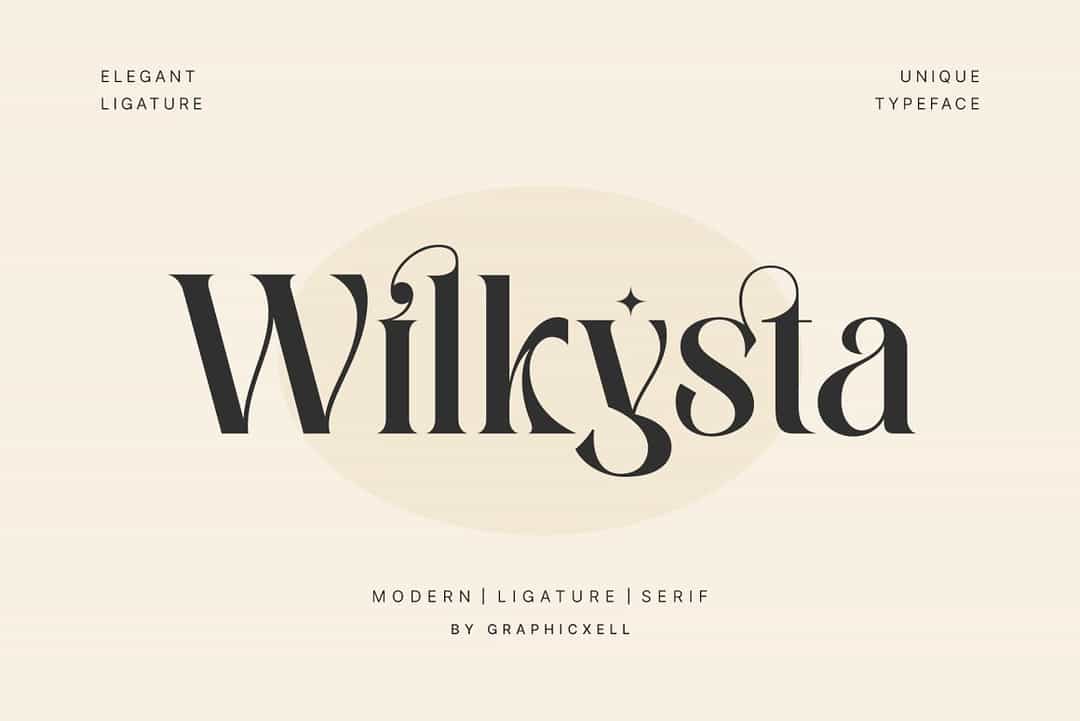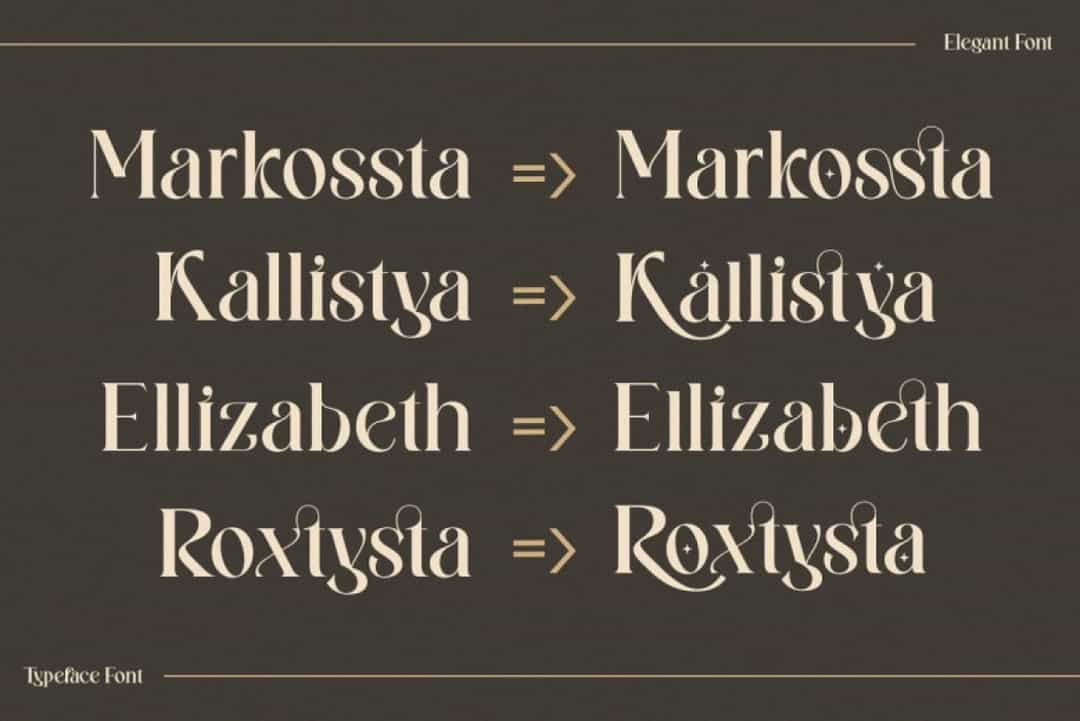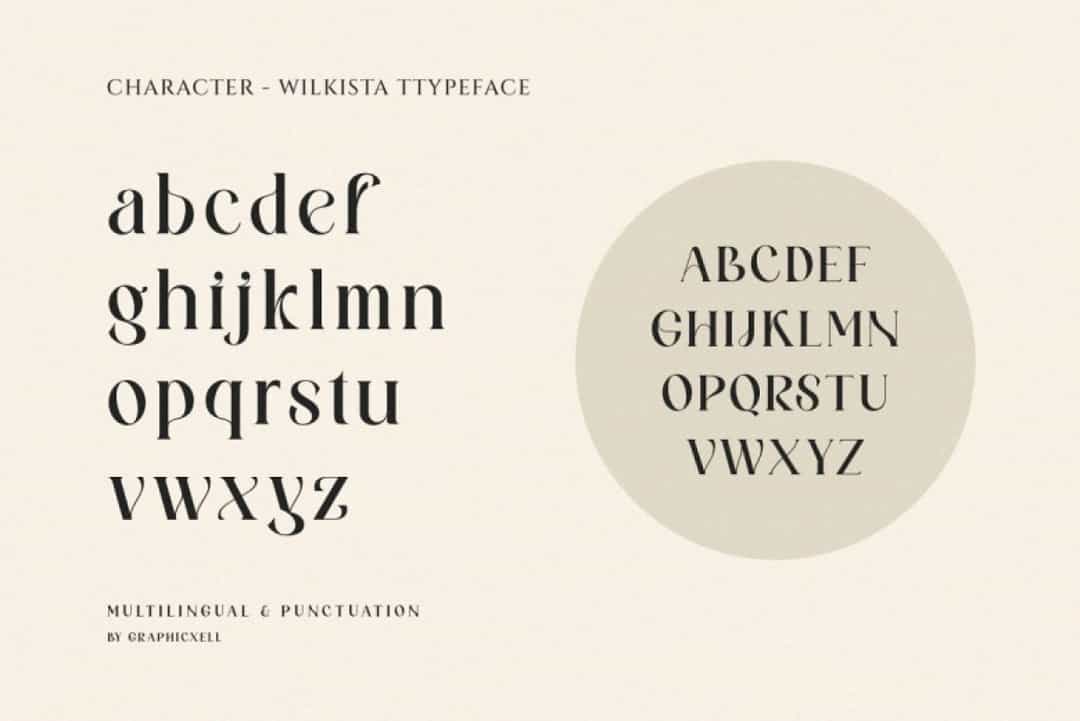
Discover Wilkista Font, part of the Serif collection—a versatile and unique font perfect for adding a personal touch to your projects. Download it for free and enjoy crafting designs with style, from invitations to social media posts. This font is available exclusively for personal use, giving you the freedom to create without limits. Unlock your creativity with Wilkista Font today!
Wilkista Elegant Ligature Serif Font was inspired by a well-known minimalist logo, making it ideal for designing brochures, templates videos advertisements branding logos and much more.